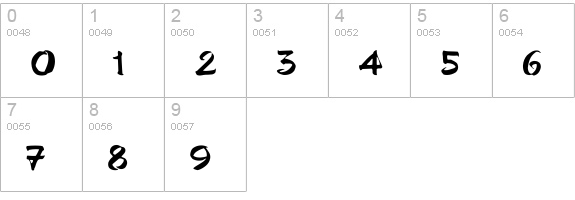
Polo-Semiscript Font Details
Polo-Semiscript is a stylish and elegant font that strikes the perfect balance between sophistication and readability. With its sleek lines and subtle curves, this font exudes a sense of modernity and class. The semi-script style adds a touch of flair, making it ideal for a variety of design projects. One of the best things about Polo-Semiscript font is that it is completely free to download. You can easily access this beautiful typeface at FontsMarket.com and enhance your creative projects with its unique charm. Whether you're designing invitations, branding materials, or any other creative work, Polo-Semiscript is sure to elevate your designs and leave a lasting impression on your audience.